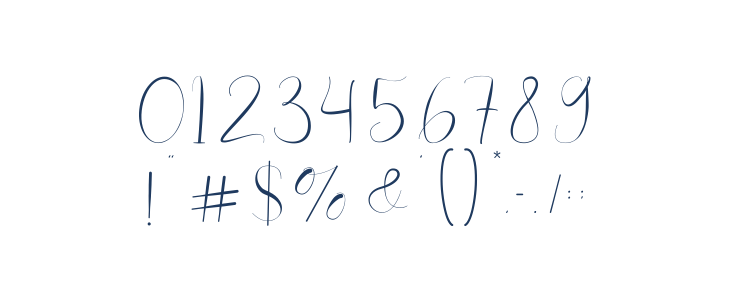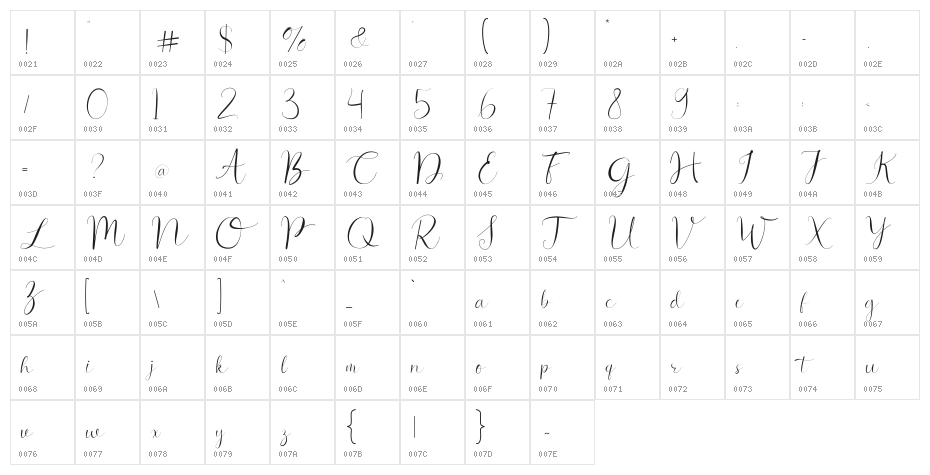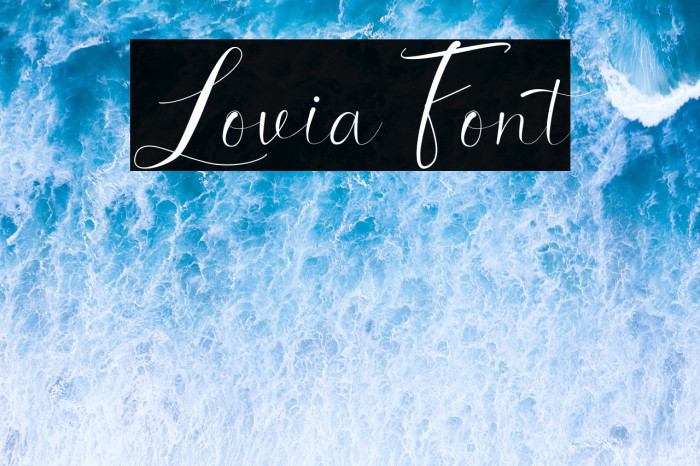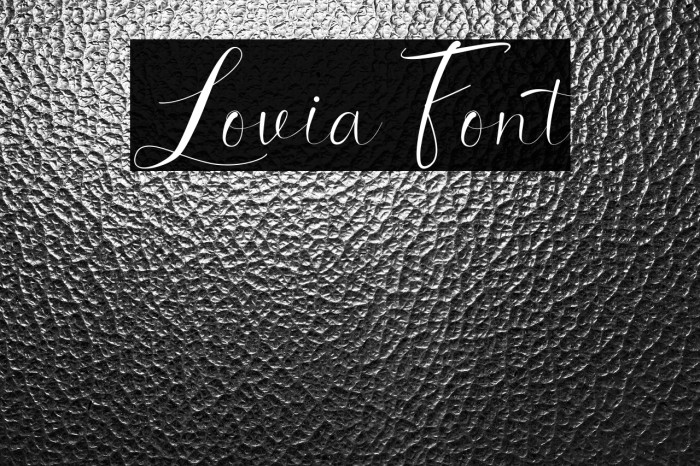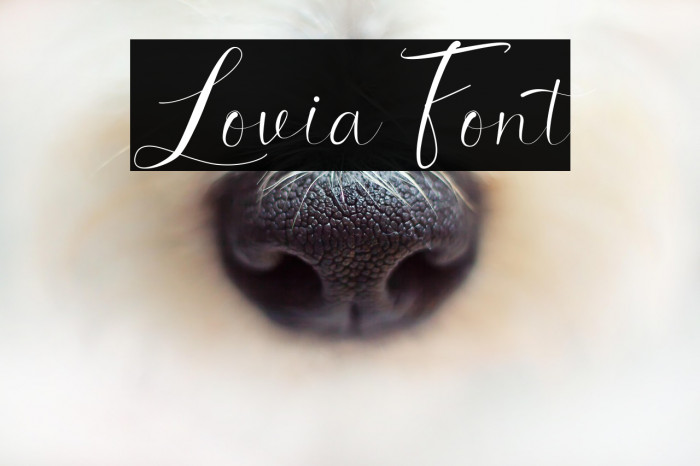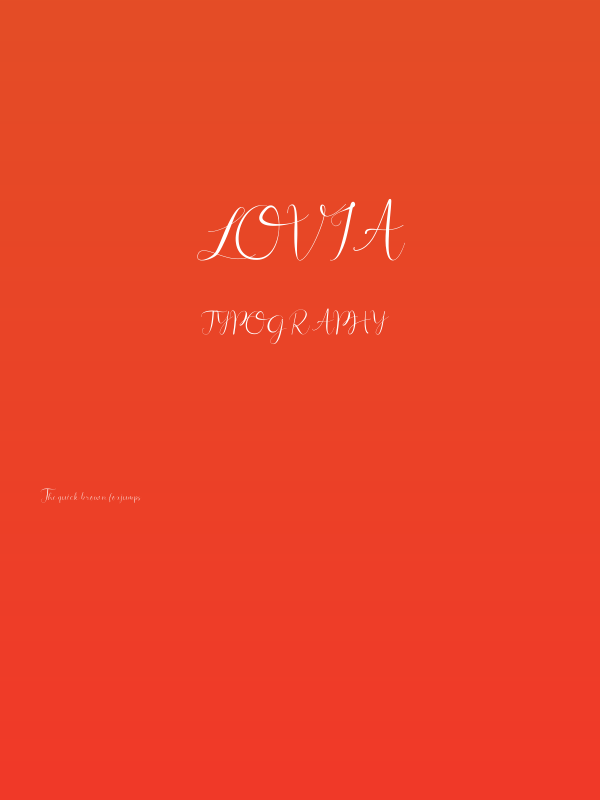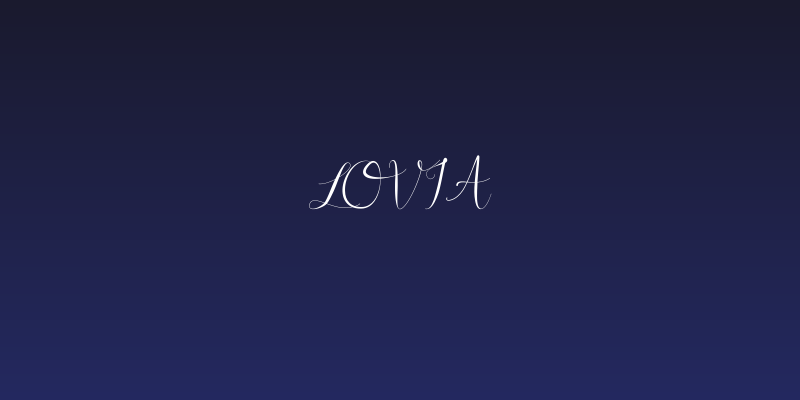
Lovia Font
Lovia Description
This elegant script font features flowing, interconnected letters with a graceful and sophisticated appearance. The uppercase letters exhibit a harmonious blend of curves and loops, while the lowercase letters maintain a consistent fluidity, enhancing the font's overall charm. The numerals are stylishly designed, complementing the alphabet with their sleek and refined form. Special characters are crafted with the same attention to detail, ensuring a cohesive look across all glyphs. The font's delicate strokes and high contrast between thick and thin lines add to its refined aesthetic, making it suitable for formal and decorative applications.
| Proposed Projects | Ideal for wedding invitations, elegant branding, personal stationery, and decorative headlines. |